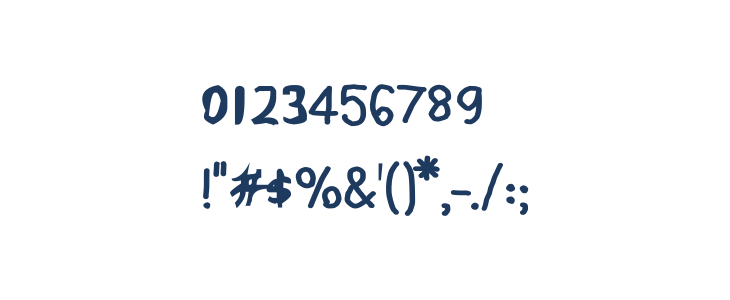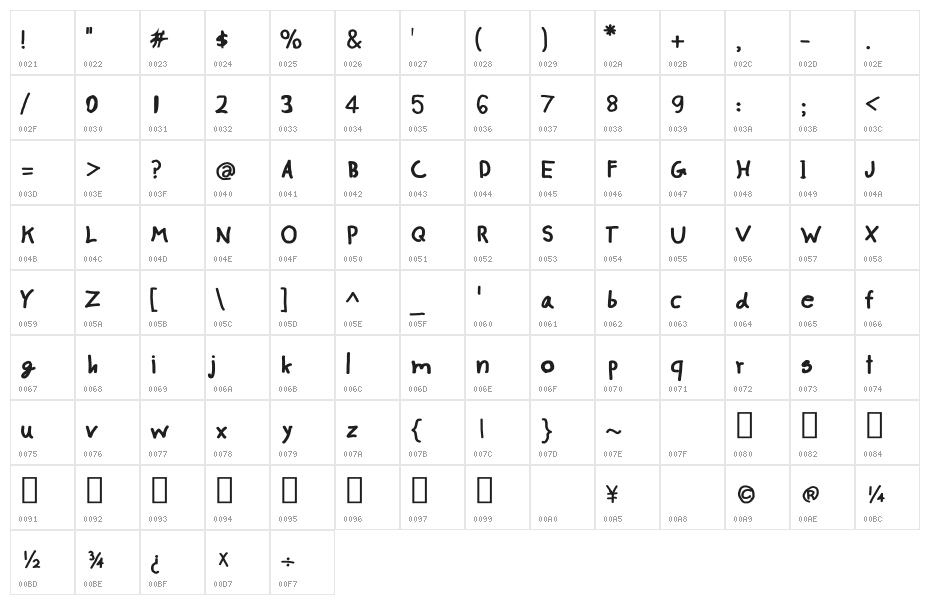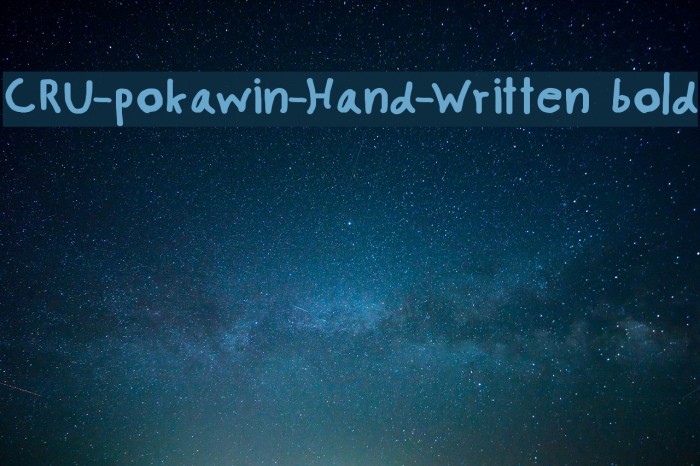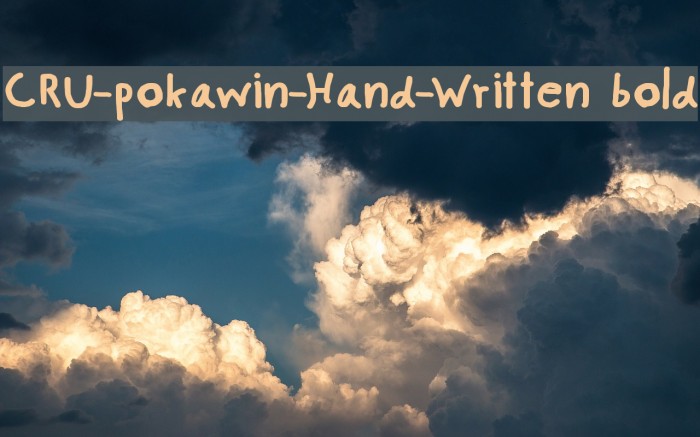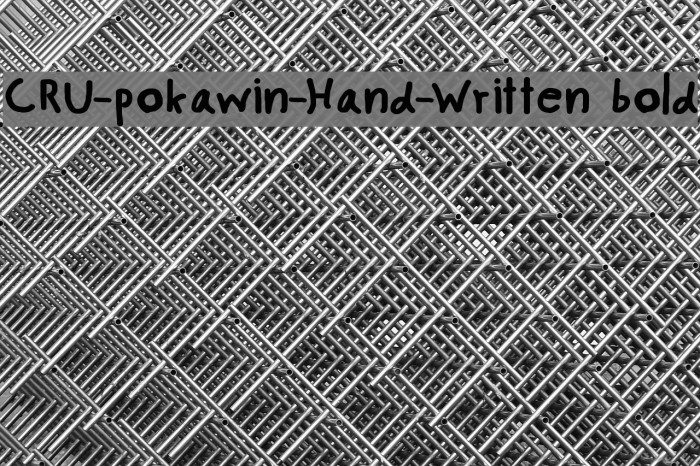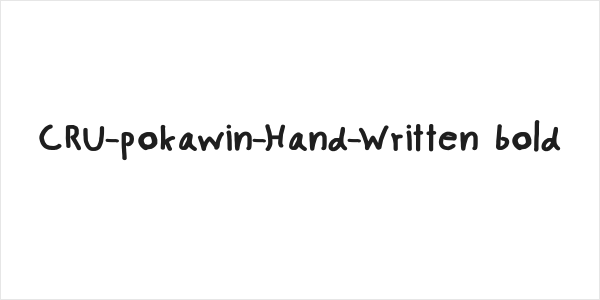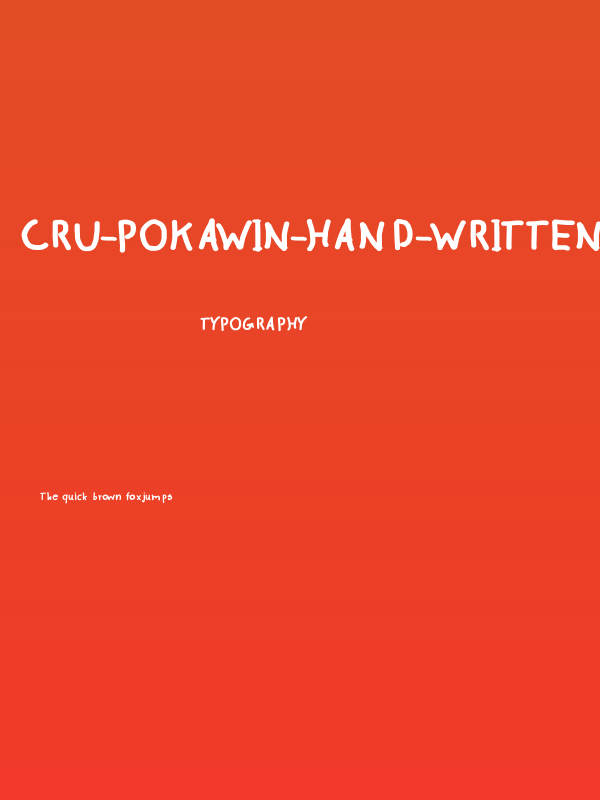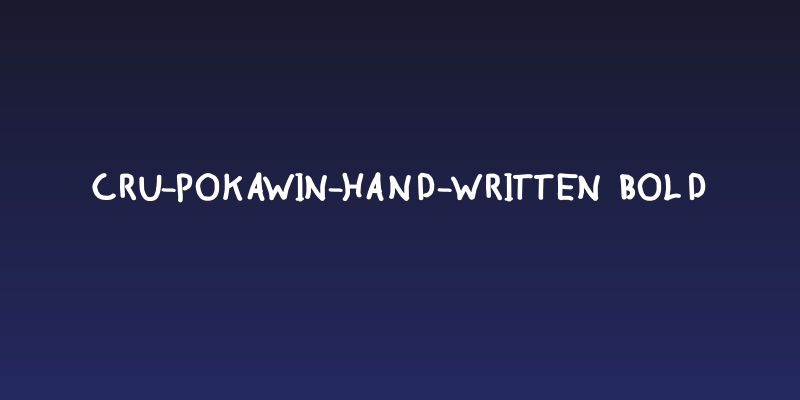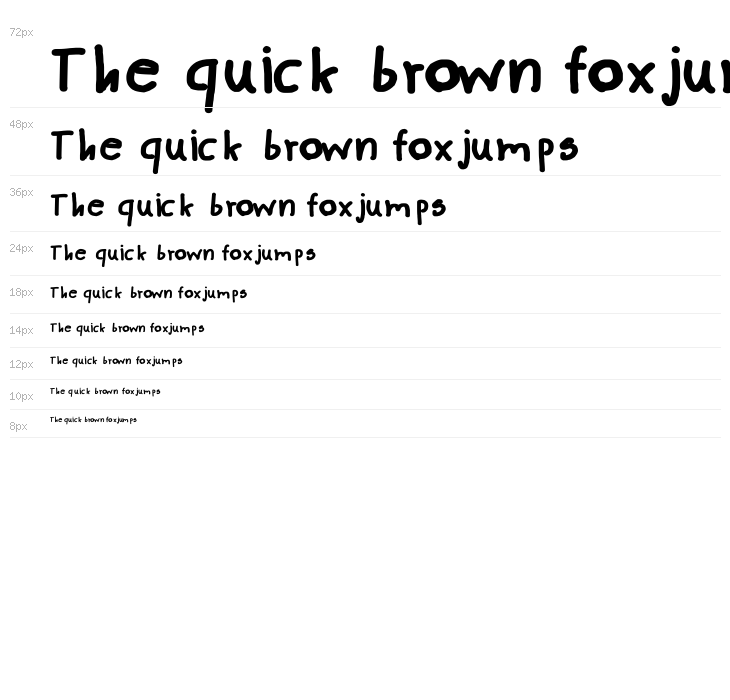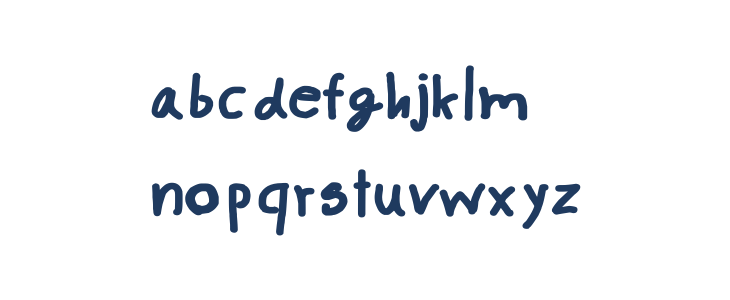
CRU-pokawin-Hand-Written bold Font
CRU-pokawin-Hand-Written bold Description
This font exudes a playful and casual vibe, characterized by its hand-drawn appearance. The letters are bold and slightly irregular, giving them a lively and informal feel. Each character has a unique, organic shape, reminiscent of handwriting with a marker or brush. The strokes are thick and consistent, providing a bold presence on the page. The font maintains a good balance between readability and artistic flair, making it suitable for creative projects. The numbers and special characters follow the same style, ensuring a cohesive look across all text elements.
| Proposed Projects | Ideal for greeting cards, children's books, playful branding, and social media graphics. |